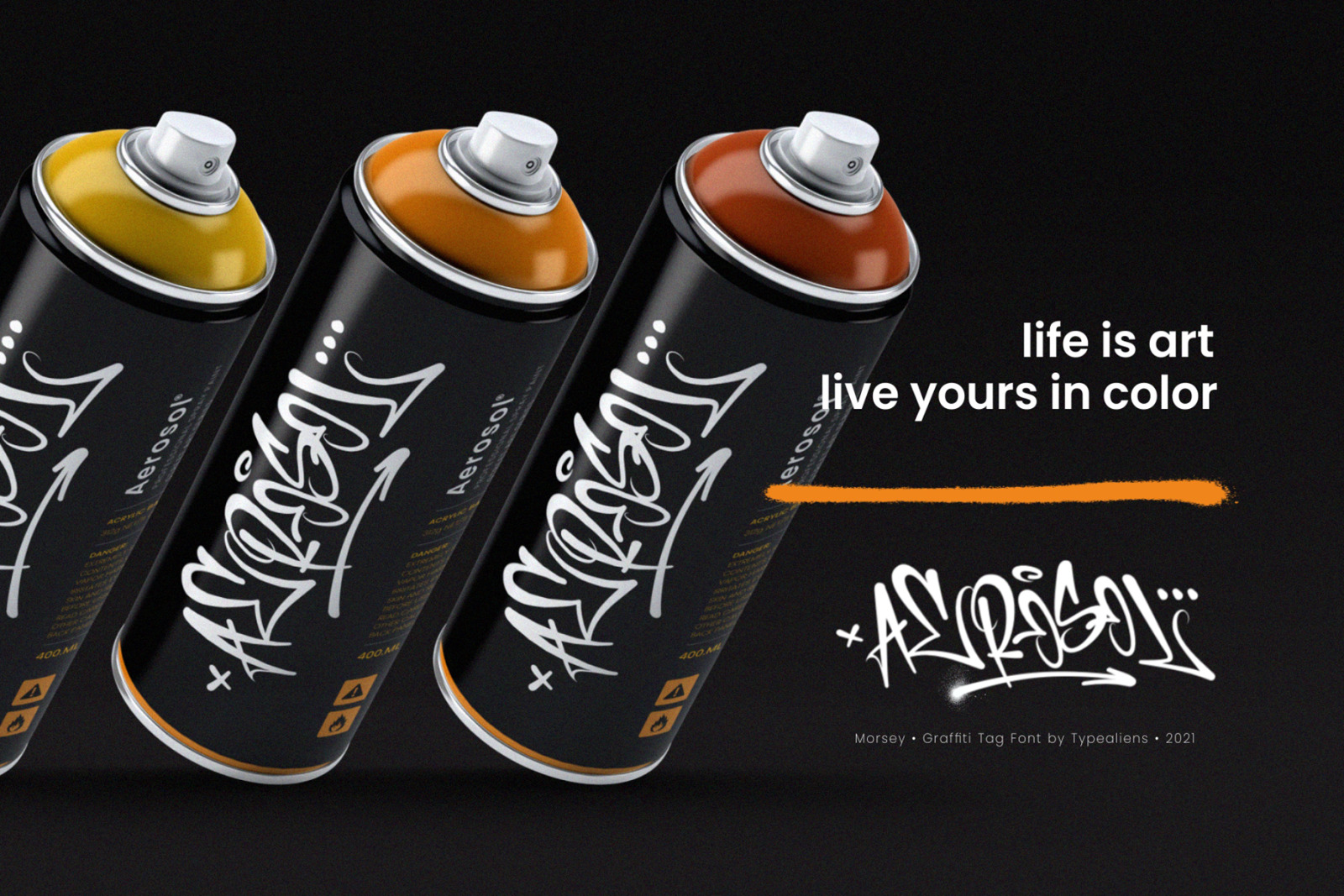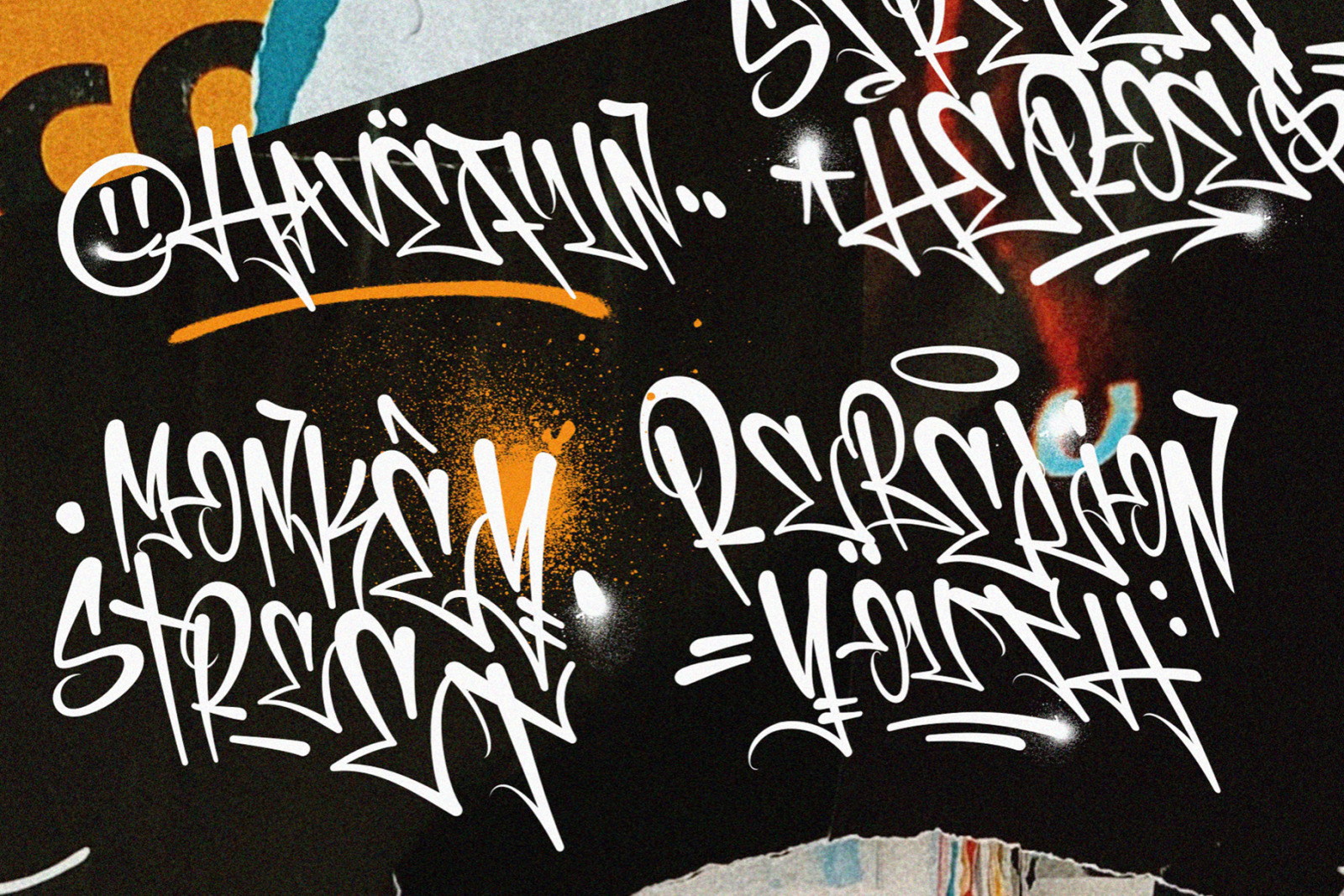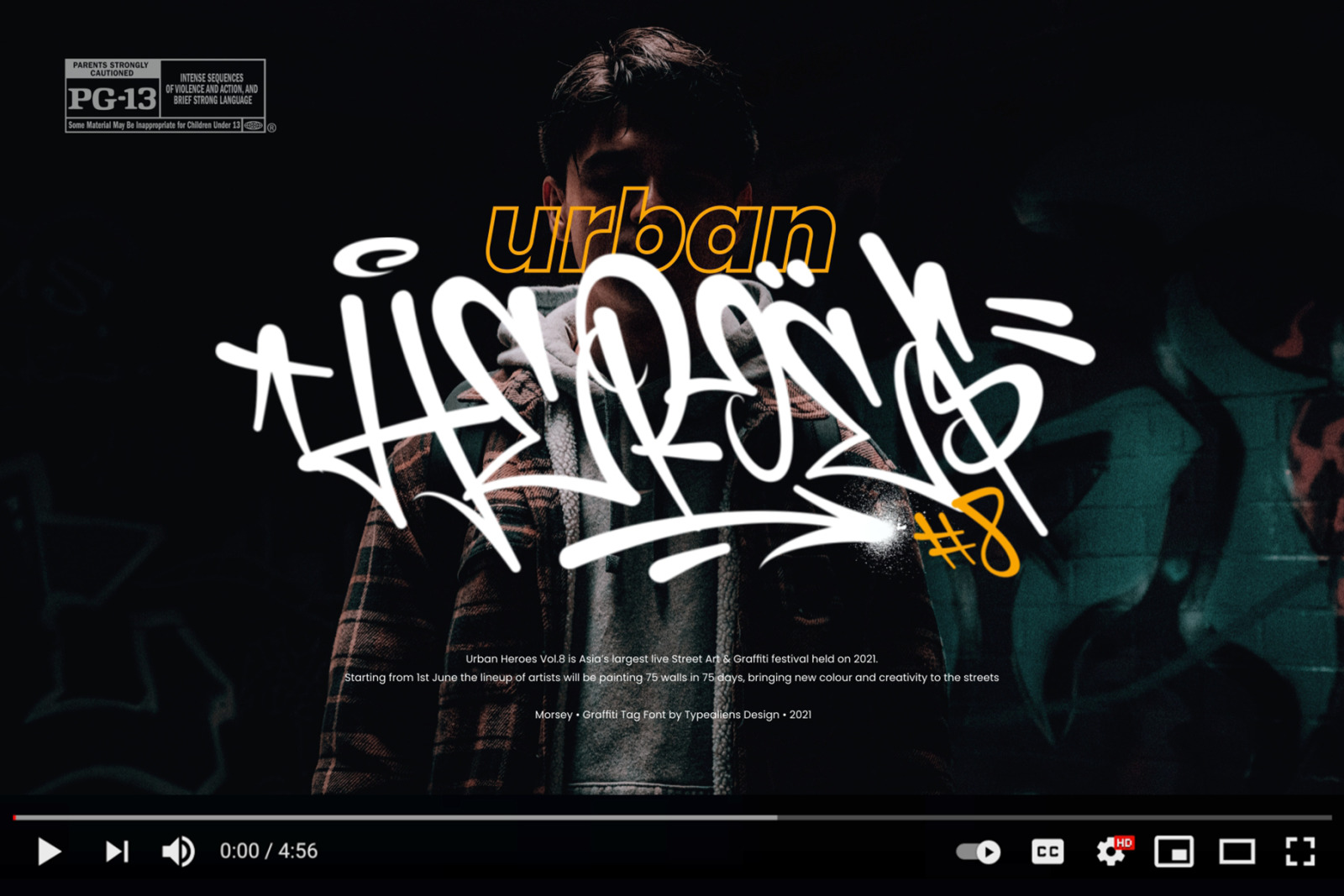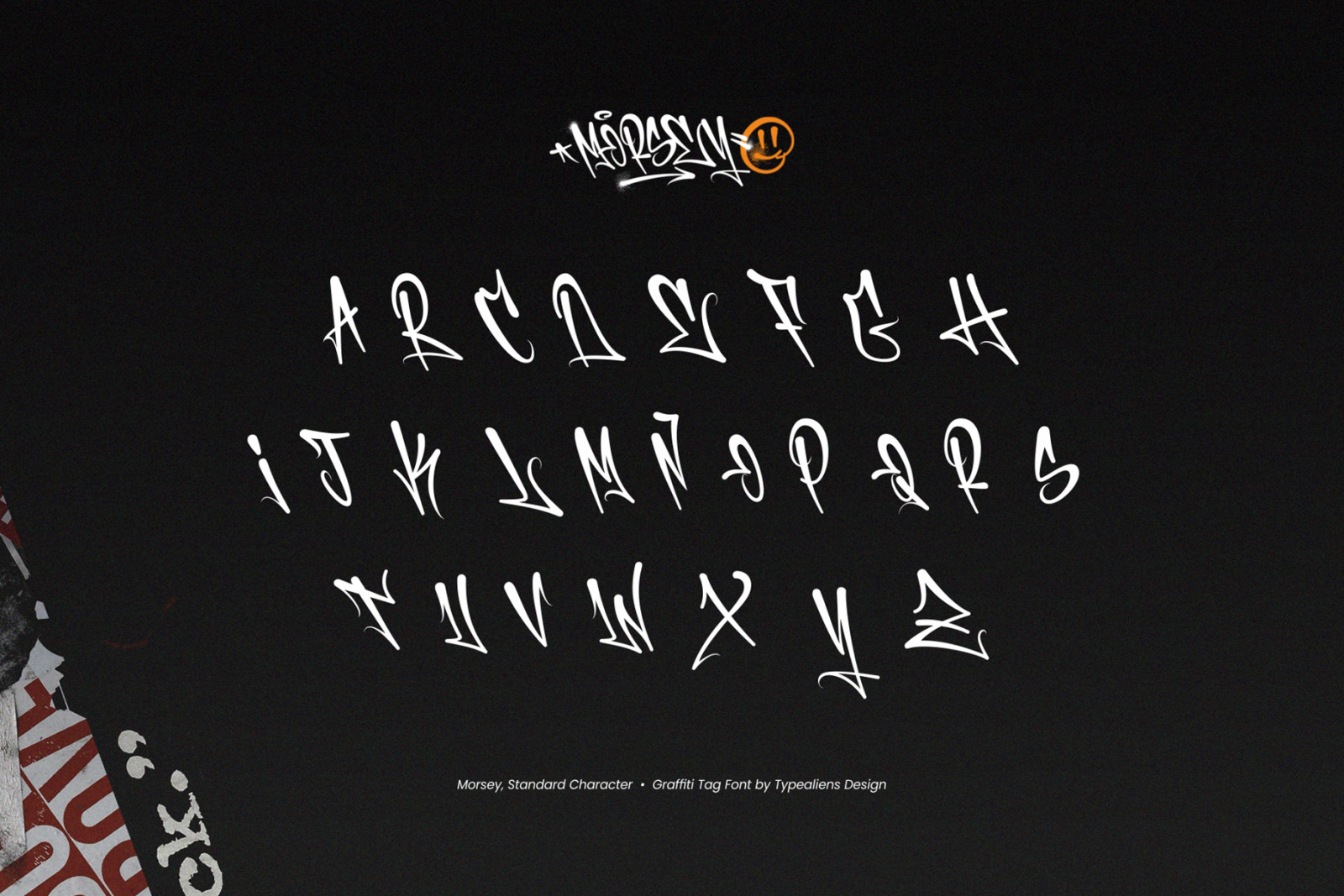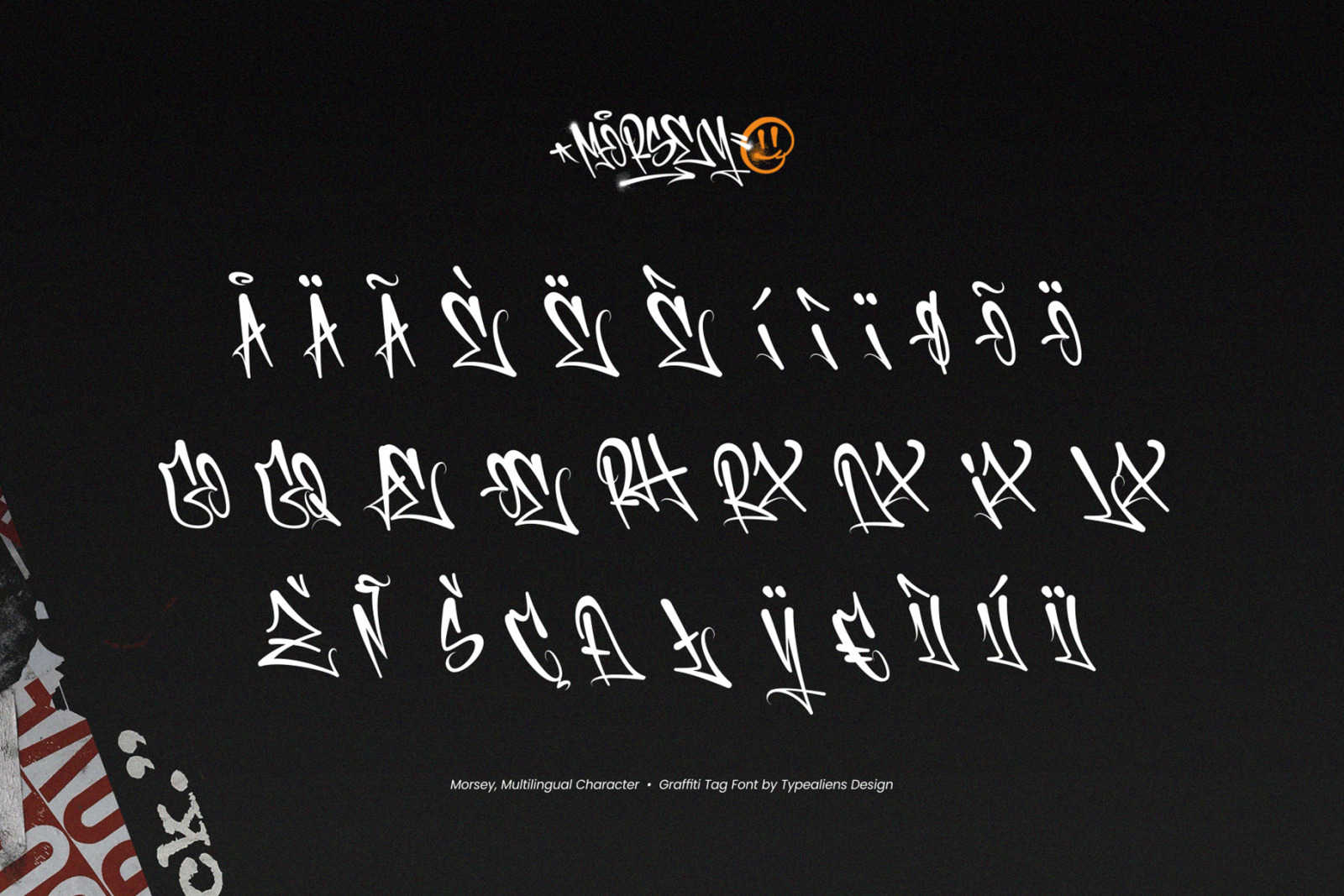
Morsey Font
MORSEY is a font with an urban art style, the basic is a graffiti font with a distinctive spray paint shape. It is suitable for modern designs in the style of urban art or street art, it can also be used to design logos for spray paint brands, community t-shirt designs or tagging.